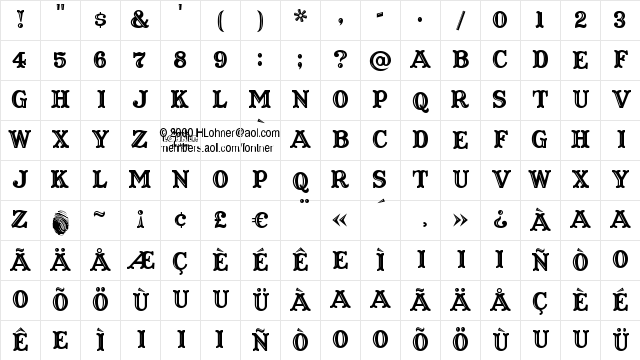
Captain Howdy Regular Free Font
Captain Howdy Regular
Design Context for Captain Howdy
Captain Howdy is a composed and adaptable typeface that performs quietly and consistently across a wide range of design contexts.